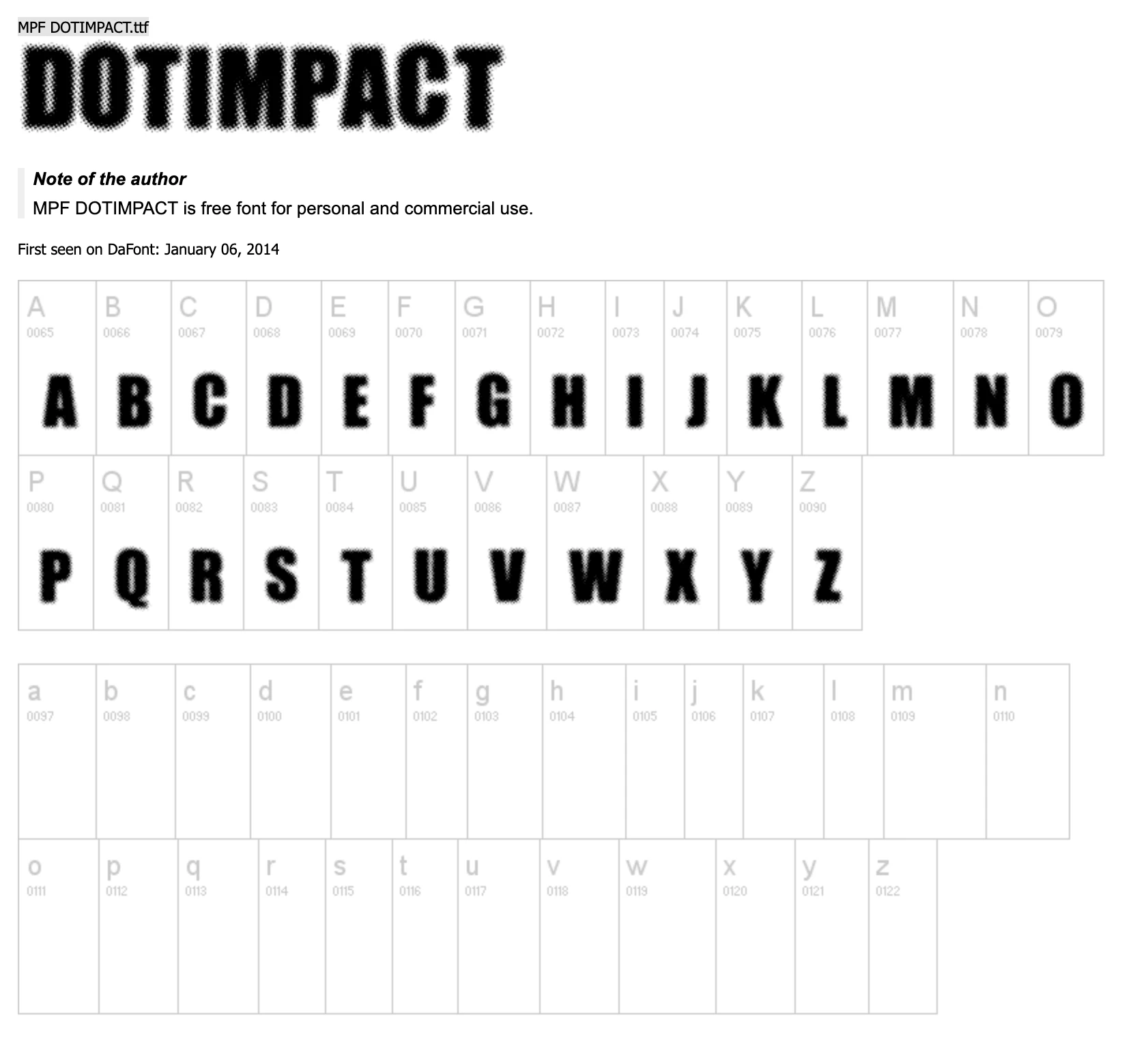
Downloaded font no longer working
• Hi, I downloaded a font to illustrator a month ago and have been using it with no issue. Now it won't type, the font seems invisible as it shows the cursor and appears to type and can be highlighted nothing is seen. My others docs with this font aren't effected and I've tried uninstalling and reinstallling the font from various websites and restarting illustrator (it's updated).
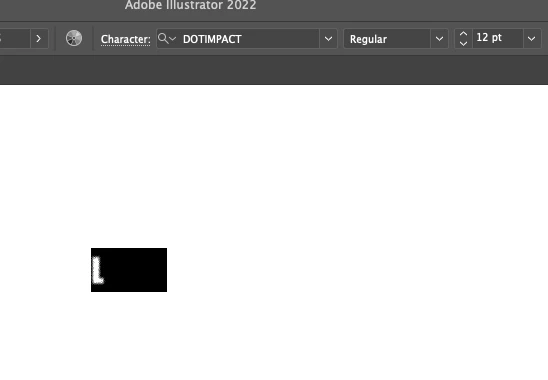    . Appreciate the help!
Your other docs are likely in all caps. As Kevin stated that font has no lowercase letters, so there is nothing Illustrator is doing wrong in your screenshot.
Probably conflicting with some other (free) font you've downloaded recently.
I don't know if this is still an issue but DotImpact only has capital letters and some special characters available.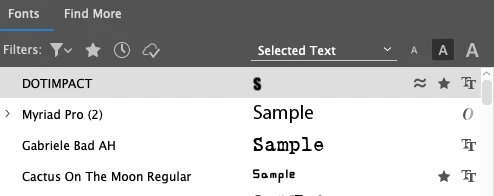